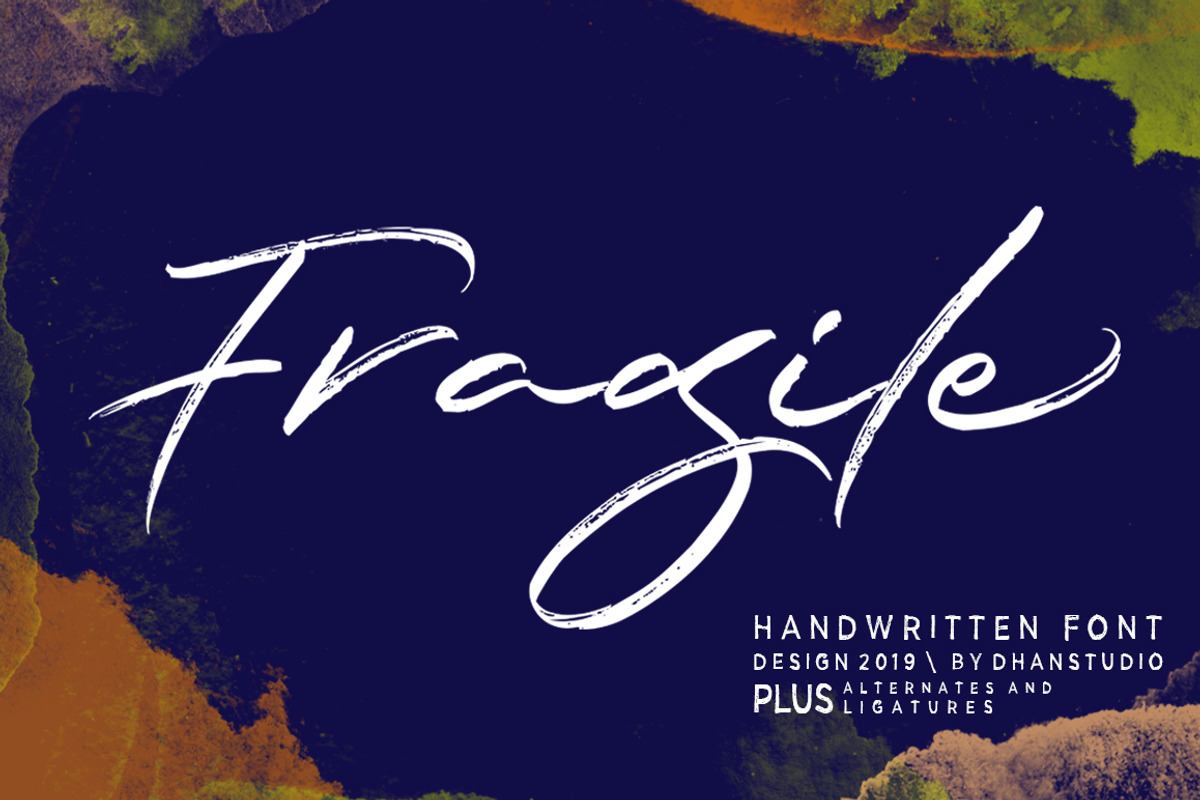
Enhance your designs with Fragile Script, a textured brush font that combines a contemporary approach with a handmade feel. Its irregular baseline and unique letterforms make it ideal for projects requiring a natural and artistic touch.
Features:
Design: Handcrafted with an irregular baseline, offering a unique and authentic appearance.
Alternatives and Ligatures: Equipped with various alternatives and ligatures to provide versatility in your designs.
Usage: Perfect for branding, logos, posters, social media graphics, and any project that benefits from a creative and expressive font.